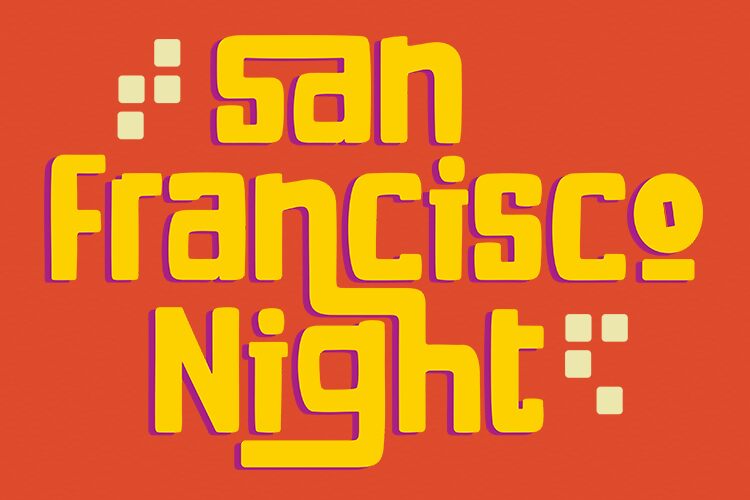
San Francisco Night is a beautiful and modern display script font designed by Zain Fahroni. This elegant font is perfect for creating stylish invitations, branding projects, and unique logos. Add a touch of sophistication to any design project with San Francisco Night!